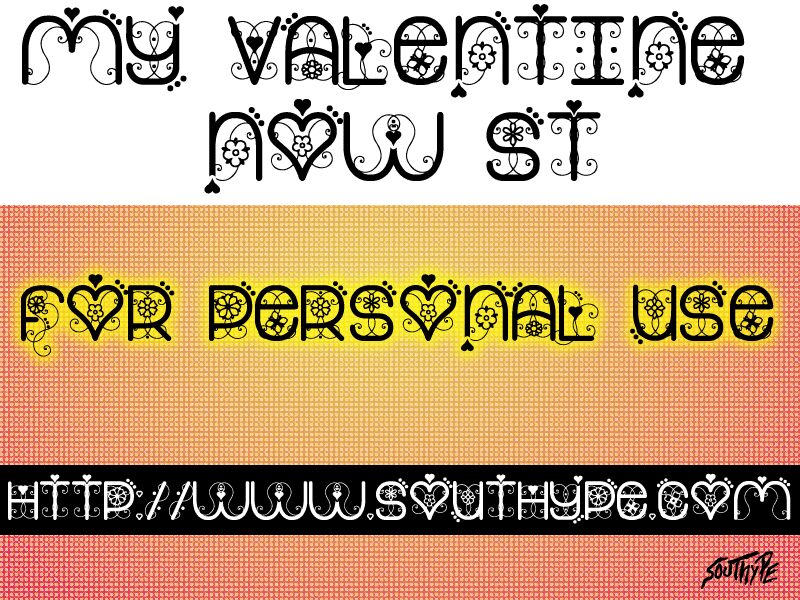
My Valentine Now St is a delightful font by Southype, exuding a romantic and whimsical charm. The swirling, script-inspired letterforms evoke a sense of handwritten elegance, making it a captivating choice for wedding invitations, greeting cards, and other love-themed projects. The playful ligatures and interwoven characters add a touch of effortless sophistication, while the varied line weights and flourishes lend a burst of personality. This font's versatility shines through, seamlessly transitioning from formal to casual applications, making it a valuable asset in the designer's toolkit.
Its enchanting aesthetic lends itself beautifully to a wide range of design contexts, from wedding stationery and event branding to product packaging and social media content. The font's ability to convey a heartfelt, personal touch is a true highlight, making it an ideal selection for projects that aim to capture the essence of love and romance.